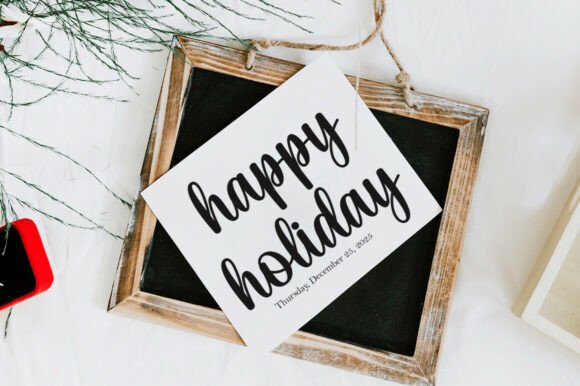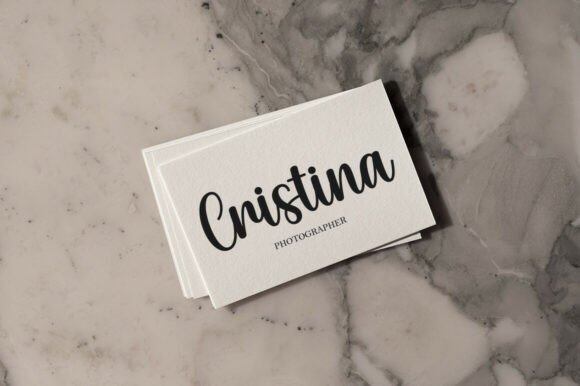
Winter Snow Font
Winter Snow is a modern handwritten script font that brings elegance and warmth to any cold-season design.
With its smooth curves, fluid strokes, and graceful letterforms, this font is perfect for winter quotes, holiday cards, branding, product packaging, wedding invites, and seasonal social media content. Let your words glide like snowflakes with this cozy, stylish script.